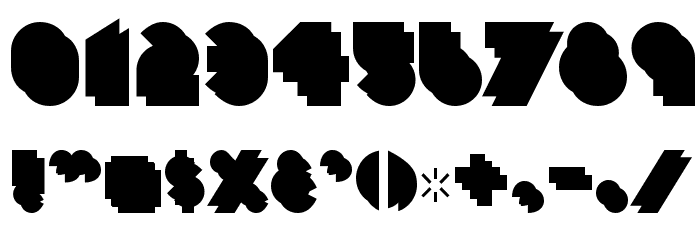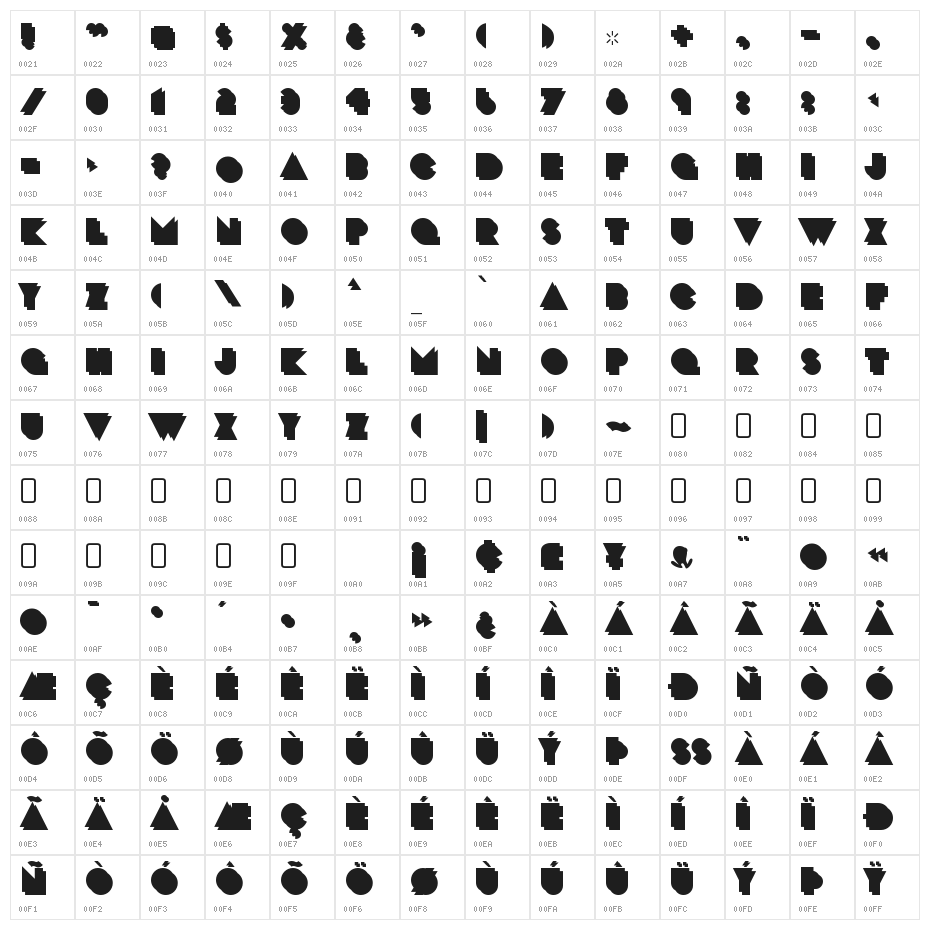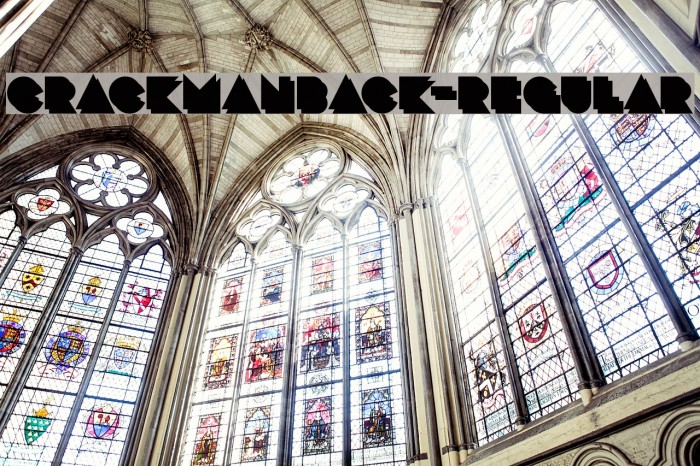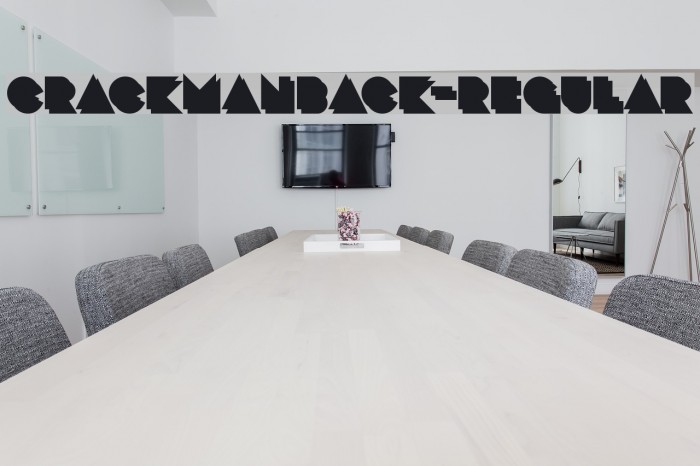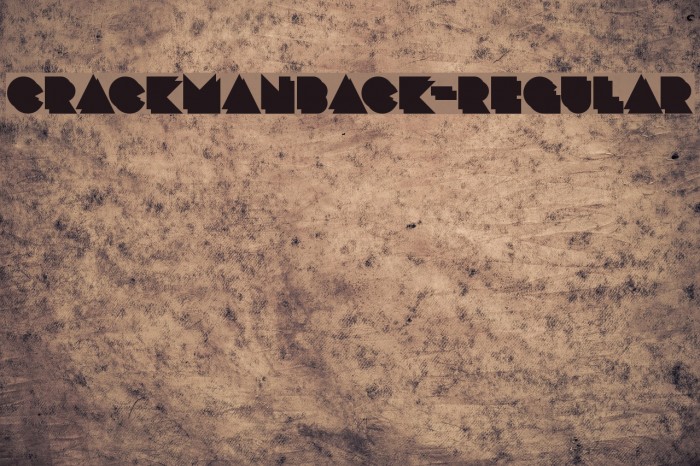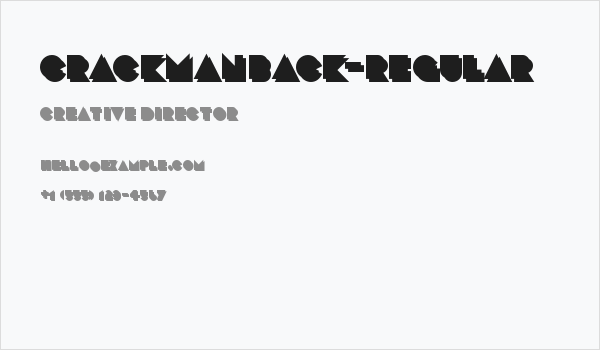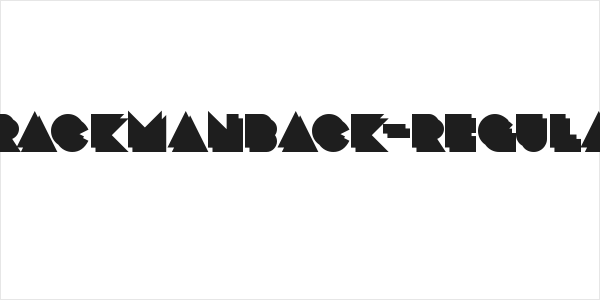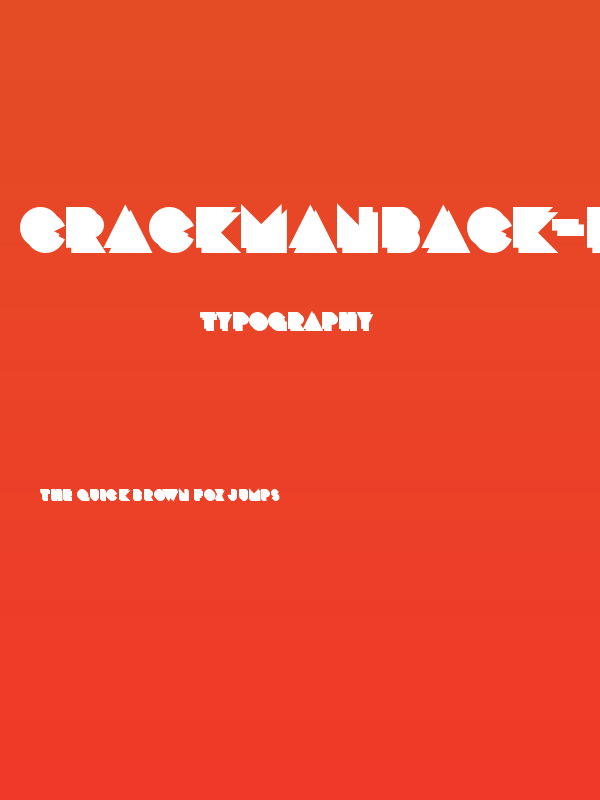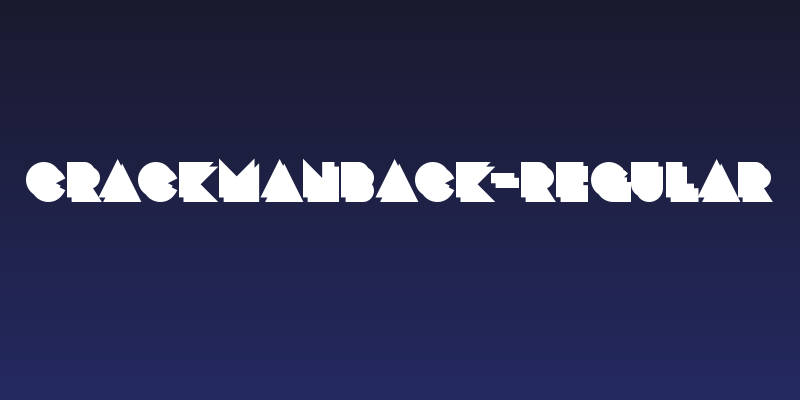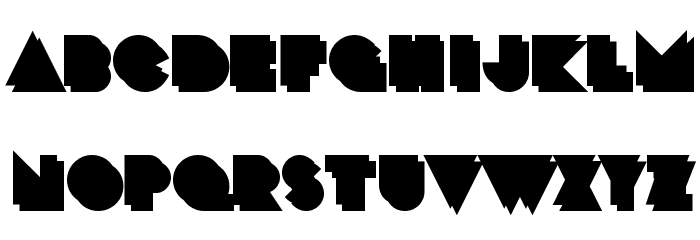
CrackManBack-Regular Font
CrackManBack-Regular Description
This font features a bold and geometric design, characterized by sharp angles and blocky shapes. Each character is crafted with a distinct, edgy style that gives it a unique and modern appearance. The uppercase and lowercase letters maintain a consistent weight, contributing to a cohesive look. The numbers and special characters follow the same design principles, ensuring uniformity across the font. Its striking appearance makes it ideal for attention-grabbing headlines and creative projects.
| Proposed Projects | Ideal for posters, logos, video game graphics, and any project requiring a bold, modern aesthetic. |